Li Beirut
This month, type designer Nadine Chahine debuted a brilliant project to bring aid to her native Beirut following the devastating blast that killed more than 177 and left an estimated 300,000 homeless.
In just one week, Chahine curated Li Beirut, a typeface composed of more than 300 glyphs drawn by 157 designers.
“To show support and solidarity for the people of Beirut, the international type design community has come together to create a typeface that would raise funds to support the victims of the blast and the reconstruction efforts,” Chahine writes in the project’s Indiegogo. “The font includes decorative isolated Arabic letters and Latin capitals, as well as Arabic numerals and a few symbols, all in one font file, together symbolizing the solidarity of the international community with Beirut and its people.”
The list of contributors is a powerhouse of industry minds. Among them:
Maha Akl
Khajag Apelian
David Berlow
Martina Flor
Tobias Frere-Jones
Jessica Hische
Yara Khoury
Martin Majoor
Erin McLaughlin
Wael Morcos (who released a typographic blanket to benefit Beirut last week)
Toshi Omagari
Jean-François Porchez
Mamoun Sakkal
Kristyan Sarkis
Bahia Shehab
Erik Spiekermann
Neil Summerour
Erik van Blokland
Petr van Blokland
Hannes von Doehren
As the campaign details, “The contributing designers wrote many messages of hope, and the overwhelming sentiment was a message to the people of Beirut: you are not alone, and we are with you. By contributing to this campaign, you are sending that message too.”
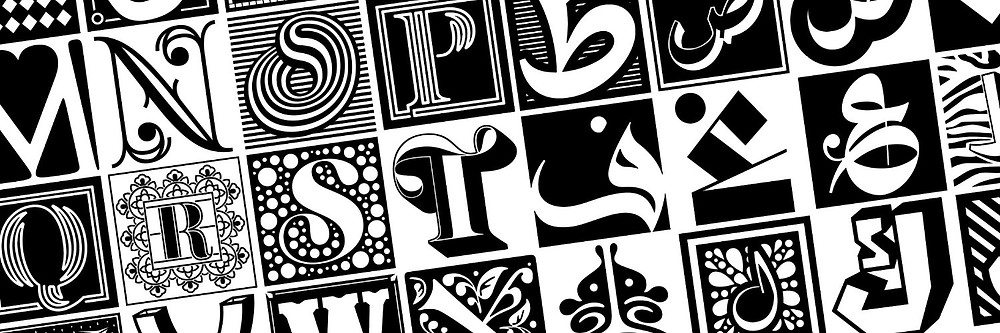
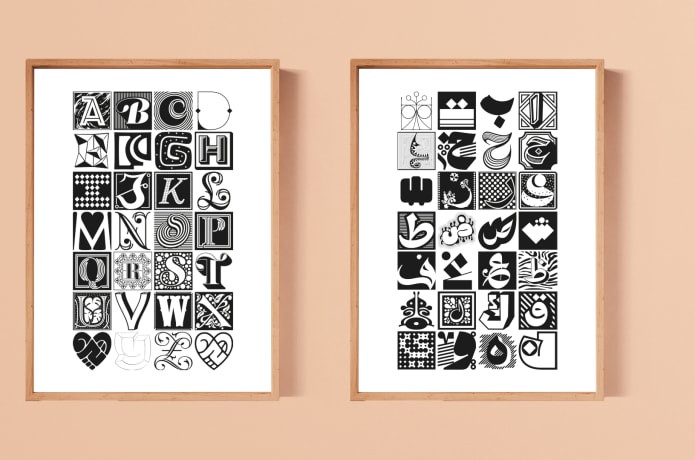
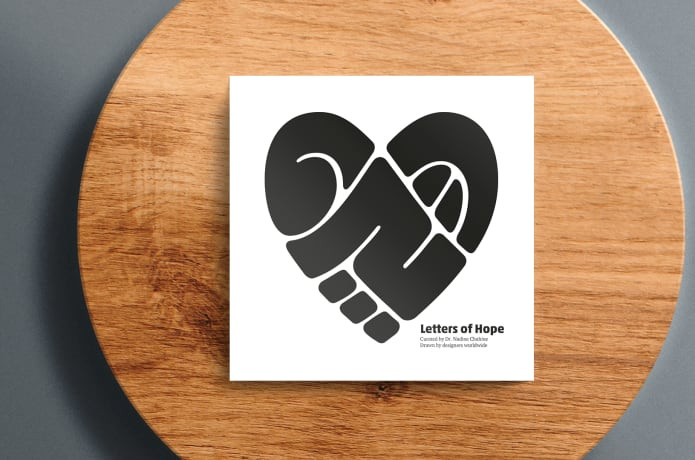
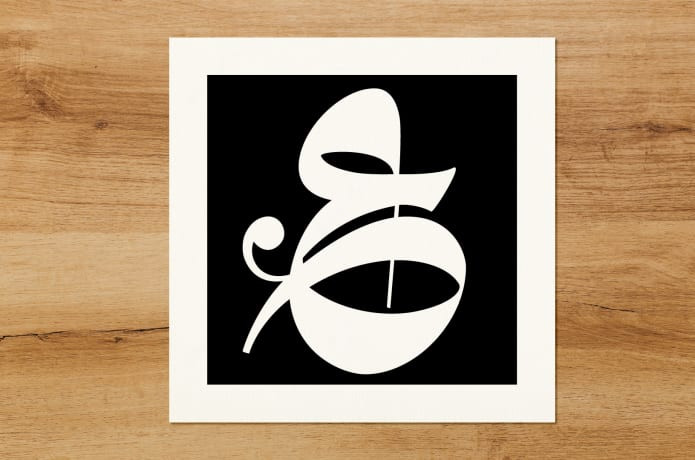
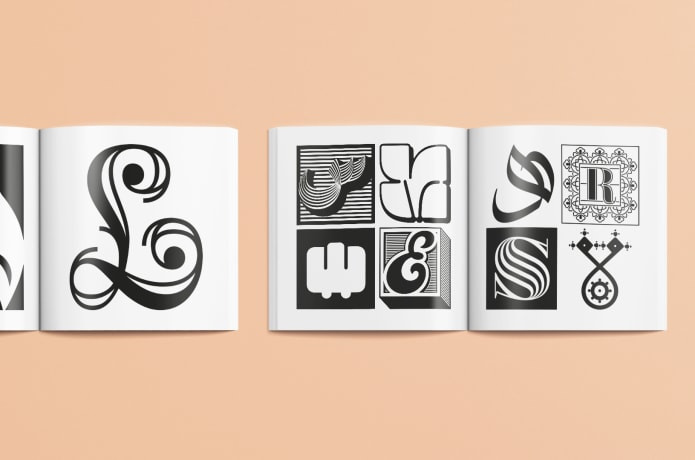
Sombra
Sombra is a typeface that merits a closer look—and one that fully blossoms when you give it one. As the seven weights increase, the delicate Sombra Light gives way to Sombra Poster, where some of the face’s most colorful characters flourish in the form of robust terminals, hairline punctuation and more.
As the German foundry TypeMates details, Sombra “combines geometric structure with leafy, sharply swelling strokes and exaggerated incisions. … Somewhere between buildings and botany, Sombra finds balance in contrasts.”
A typeface that would indeed look good everywhere from packaging to editorial applications, Paul Eslage’s design also features 680 glyphs in each style.
Migra Serif
With its policy of giving anyone top-shelf type for personal use—thus allowing designers to become intimately familiar with a font’s full range of capabilities before acquiring it for a commercial project—the Pangram foundry has always done things differently.
And their latest typeface is delightfully different.
Migra Serif, designed by Valerio Monopoli, is a quirky and beautiful face inspired by the features of migratory birds.
“Its weights span from an austere and elegant light cut to a hawkish and powerful black one,” the foundry writes. “Packed with a set of even more gestural italics and sundry special ligatures, this typeface is guaranteed to add sparkle and grace to any of your designs.”
With eight Roman styles and eight italic styles, alongside 568 glyphs, our hearts are aflutter.
Gallos
The W Type Foundry is on a self-professed mission to bring uncials back.
To resurrect the scripts—which were popular from the fourth to eighth centuries AD—the Chilean studio is brewing up some typographic alchemy.
As they write, “What comes to your mind if I say Architype, Geometric, Gaelic and Uncial? An impossible combination of features? An unrealistic setup of tastes as weird as your music list? Or some part of a joke told by your favorite comedian? Just chill and stick to the idea that [it’s] possible.”
On paper, the resulting typeface, Gallos, doesn’t seem like it should work. But then you get drawn in by Diego Aravena Silo and Salvador Rodríguez’s distinct ‘a,’ and you realize it does.
The typeface takes the form of two subfamilies: Gallos Uncial and Gallos Architype. Pops of quirk and personality find their way to the fore of the fonts, thanks to an ‘M,’ ’N,’ “W,’ ‘a,’ ‘m,’ ’n,’ ‘r,’ and ‘w’ unique to each.
“The Uncial script aspect [displays] the leaned ‘a’ with a closed bowl, and the classical geometric style [depicts] more conventional uppercase and lowercase letters ‘m’ and ‘n.’ The Architype [subfamily] is inspired by Paul Renner’s Architype model, thus the leaned ‘a’ has an open counter, the ‘r’ is composed by a stem and a dot, and the rest of the mentioned letters were built using square rational features. Both models are connected by classical Uncial features such as the curved stroke ‘e’ and curved shaft ‘t,’ and with Gaelic vibes which can be seen in uppercase and lowercase letters ‘K’ and ‘X.’”
That being said, the face’s angular curves (and low contrast) make it an ideal contender for contemporary applications such as web and app design.
Turbine is also international in nature: Operating across seven weights, it features 489 glyphs, supporting all Western, Eastern and Central European languages.